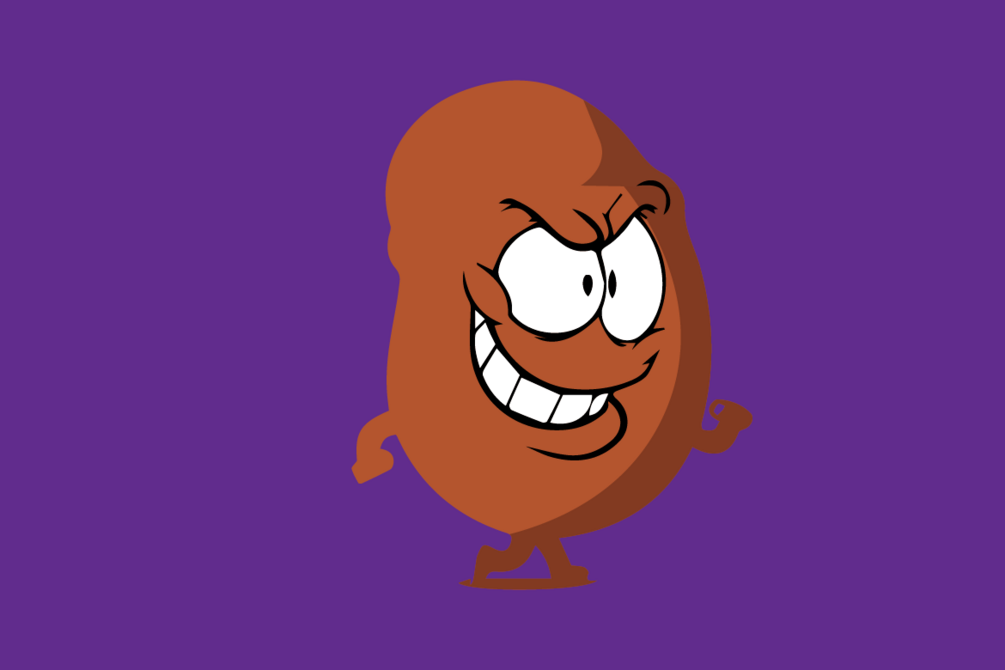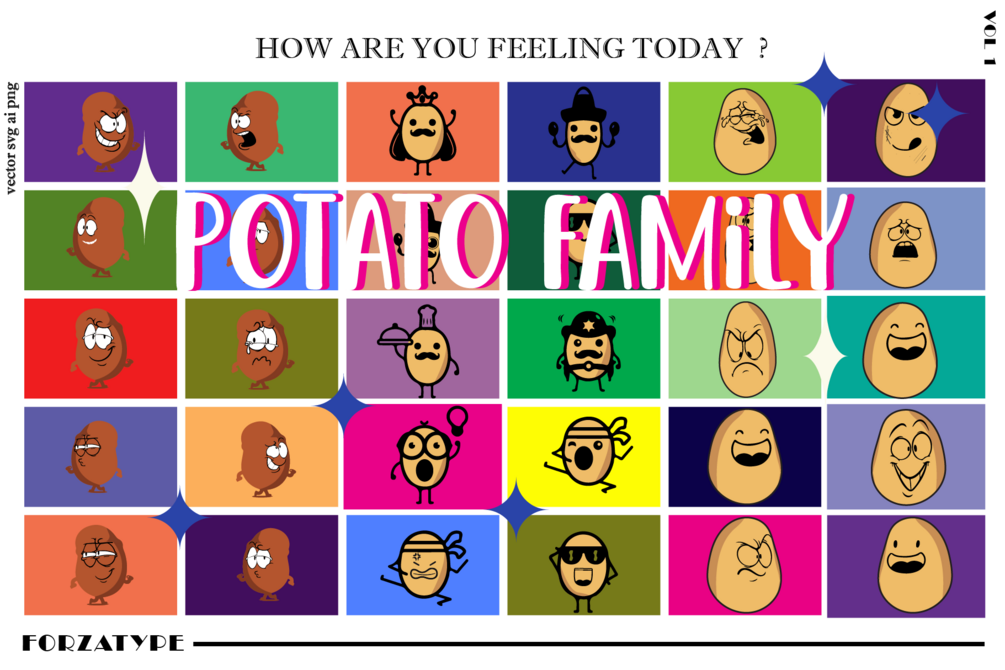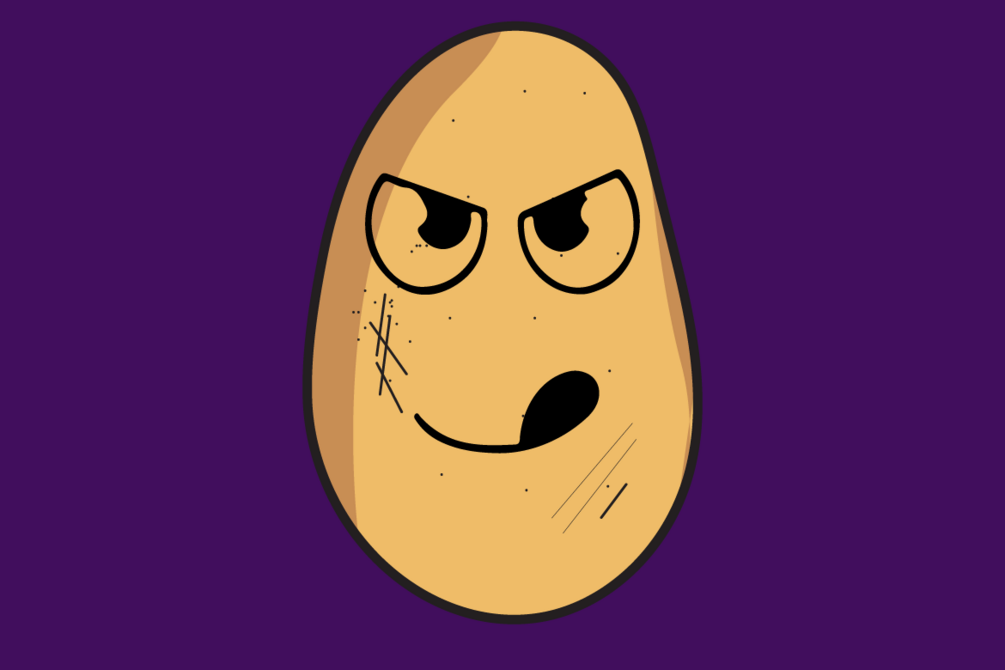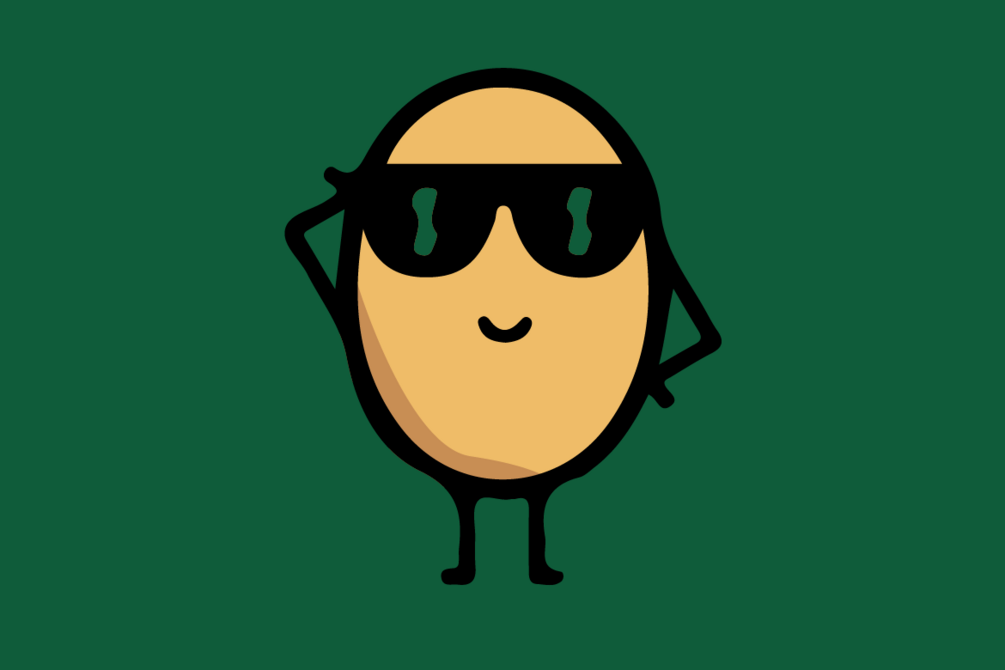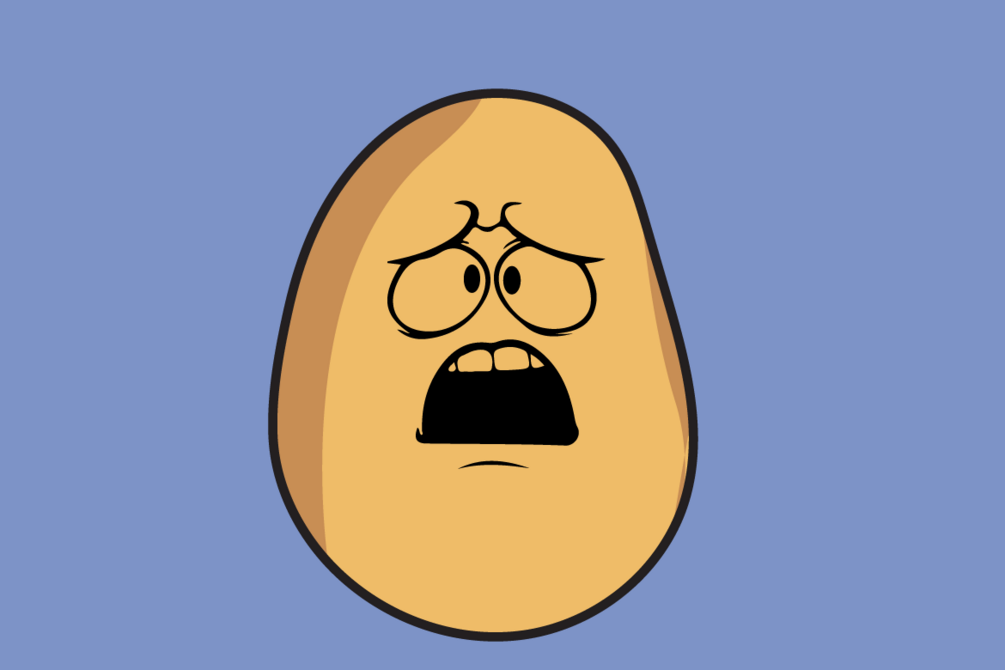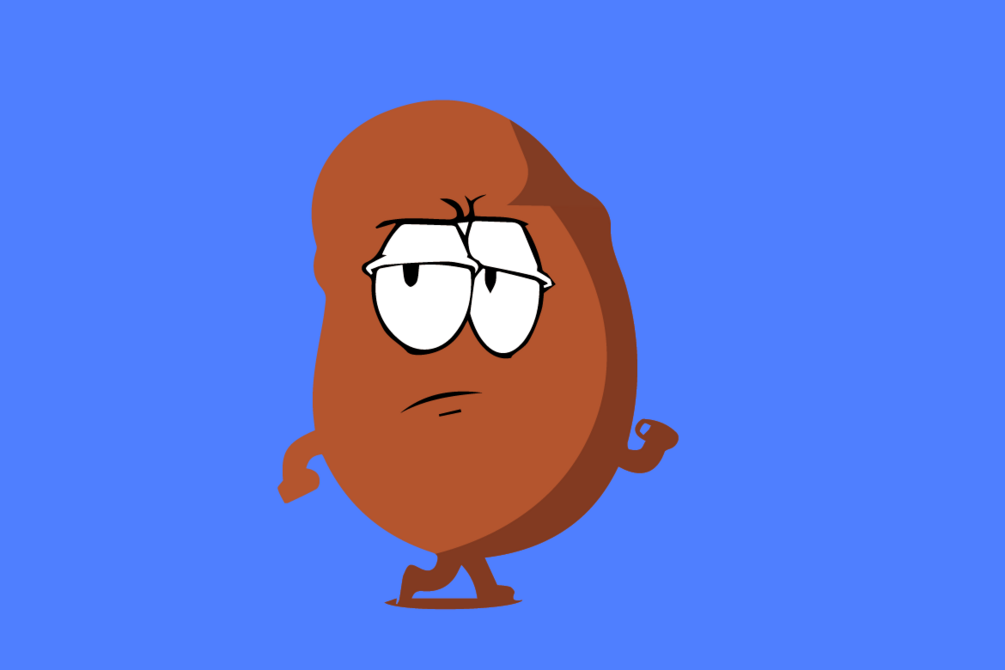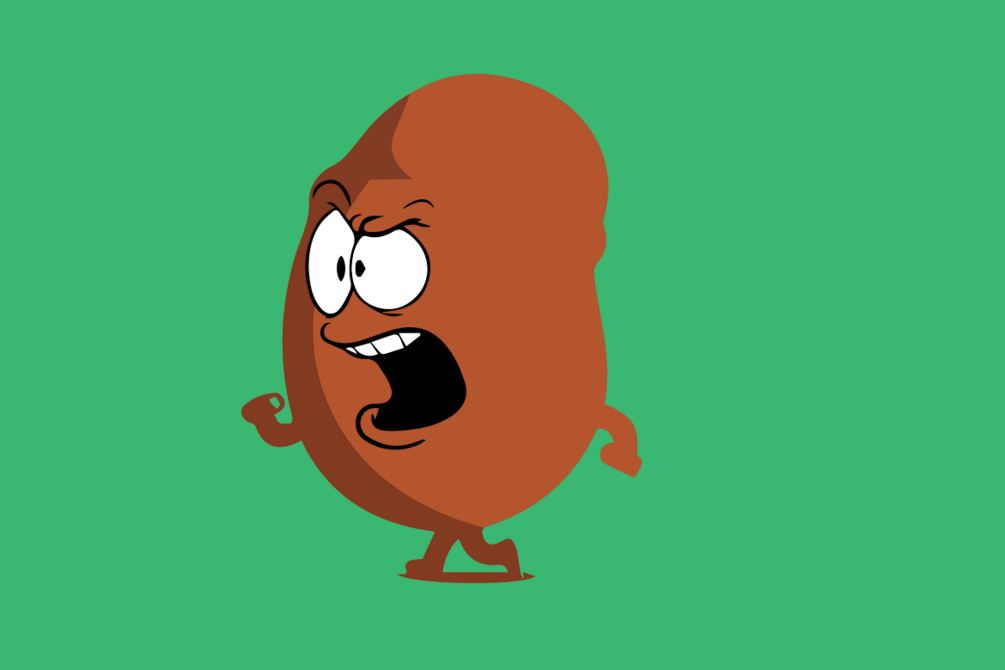
Potato Family
Potato Family is a unique set of icons that reflect various moods and states of mind that we experience in everyday life. Each character in this family is designed to represent emotional moments we all go through, such as happiness, sadness, fatigue, and excitement. With a simple yet expressive design, these icons bring warmth and relatability, making them perfect for conveying feelings in conversations, presentations, or any creative content.
The "Potato Family" icons not only provide appealing visuals but also convey a deeper message about the beauty of human emotions. They are suitable for a variety of uses, from graphic design and social media to daily digital communication.